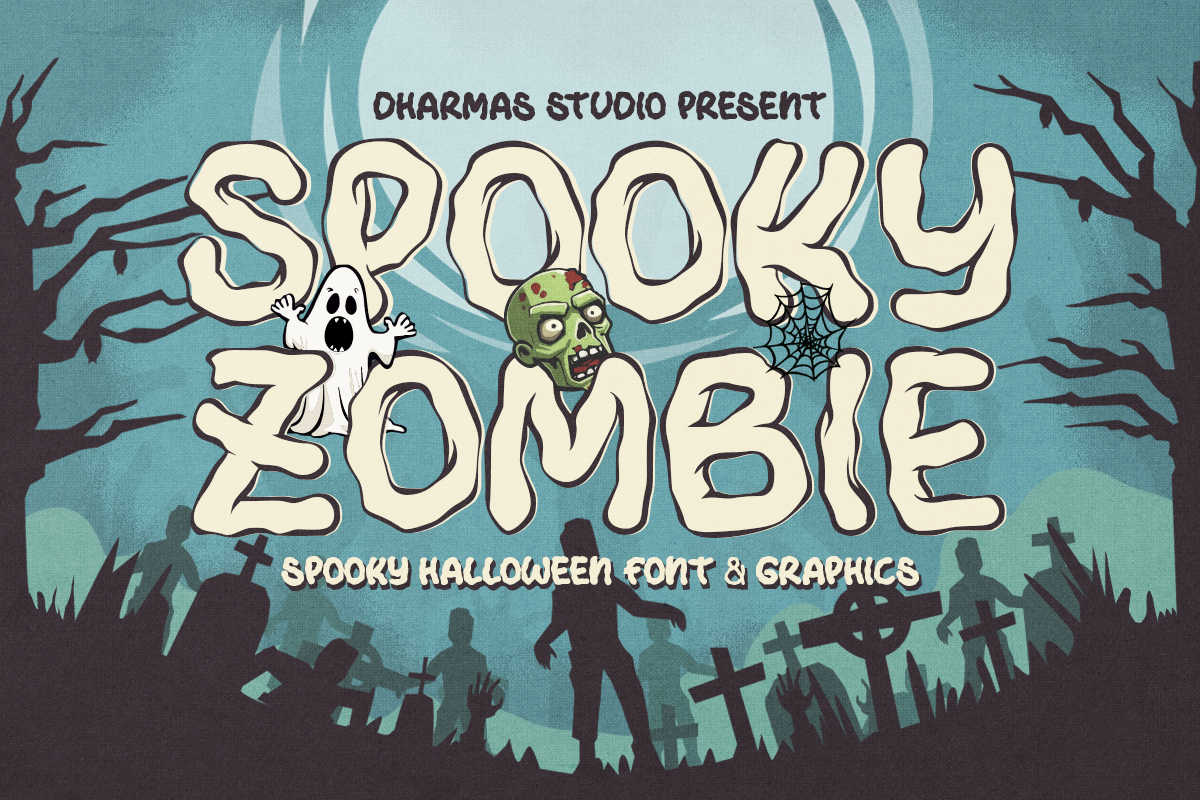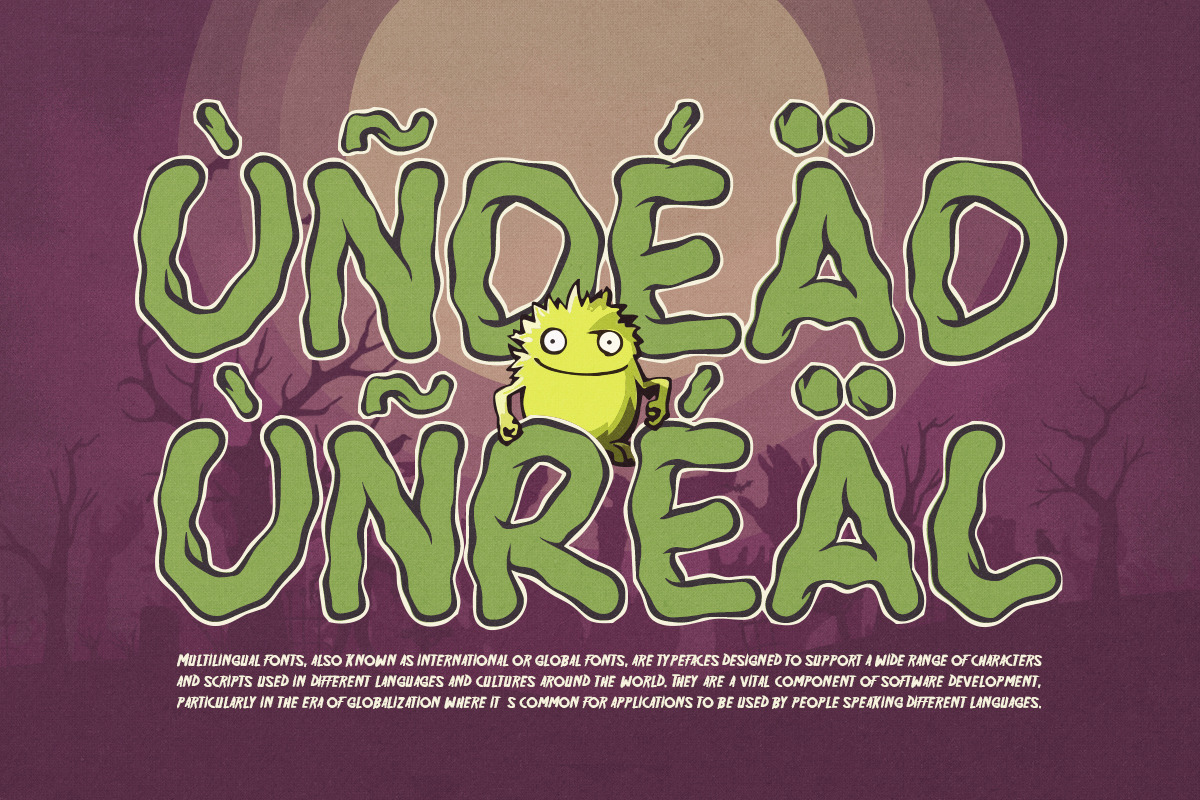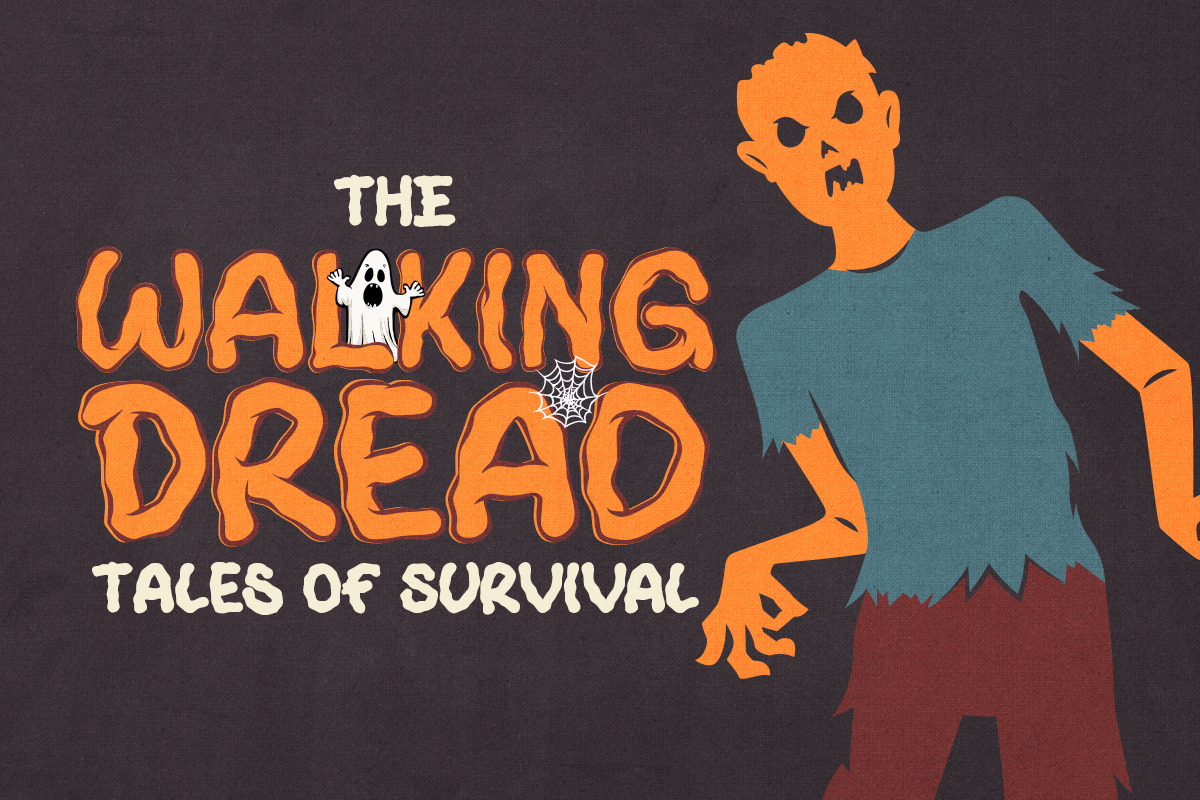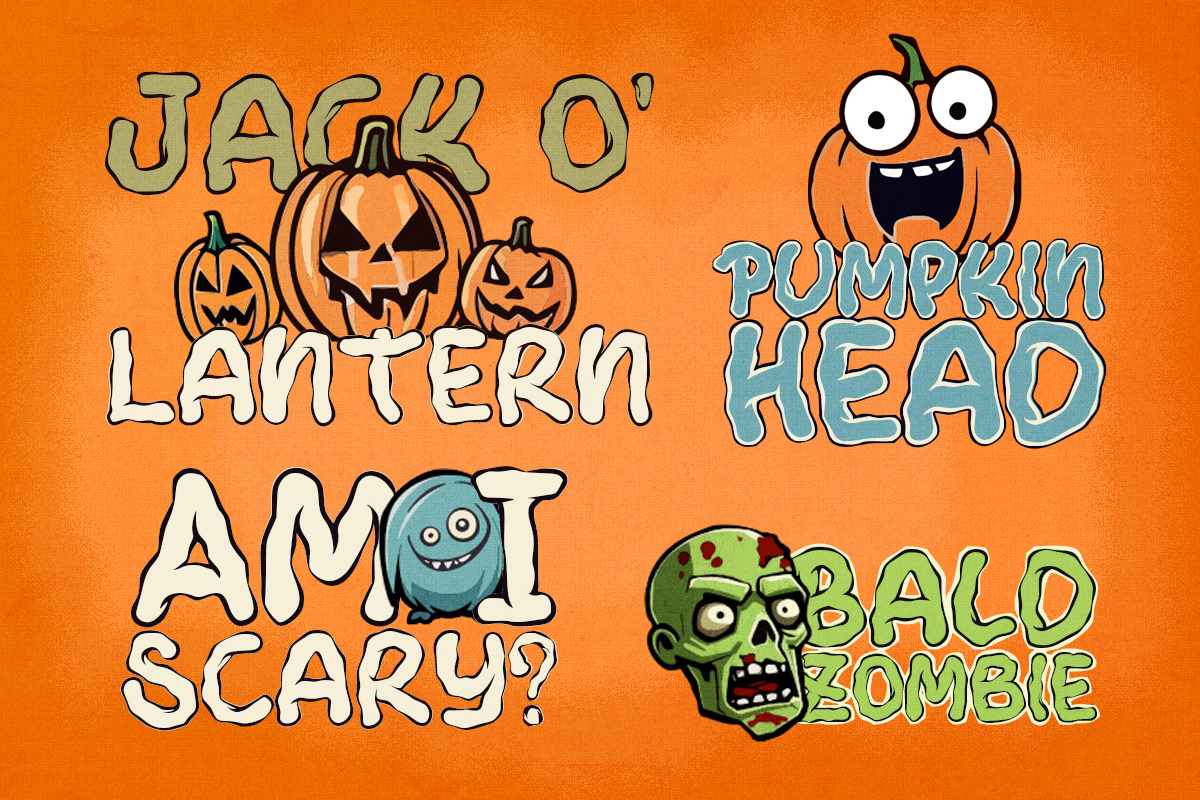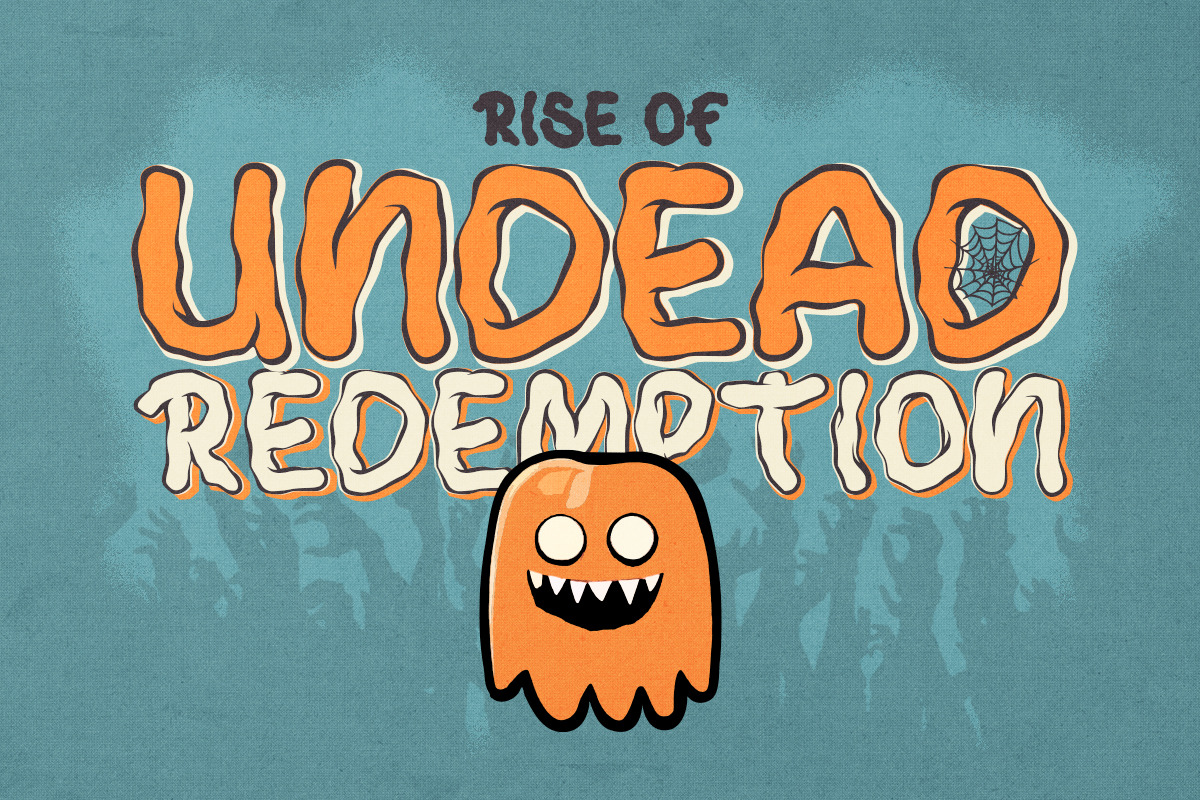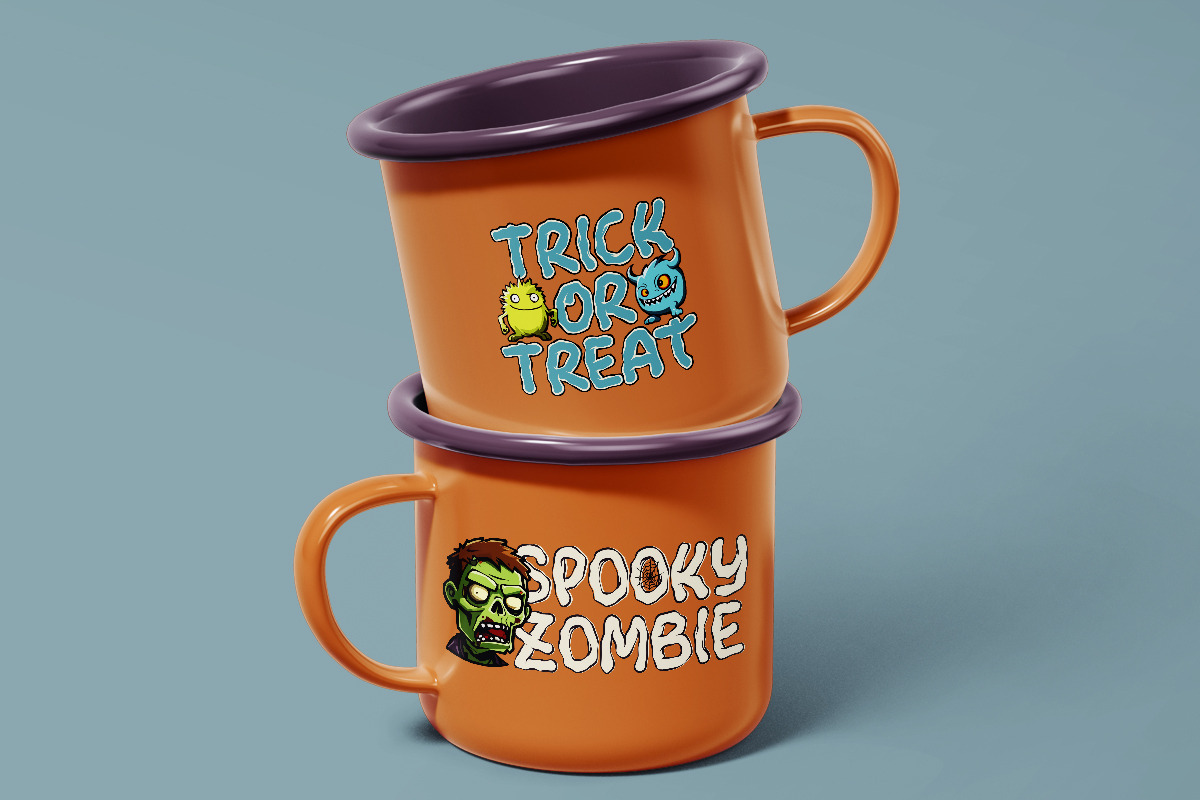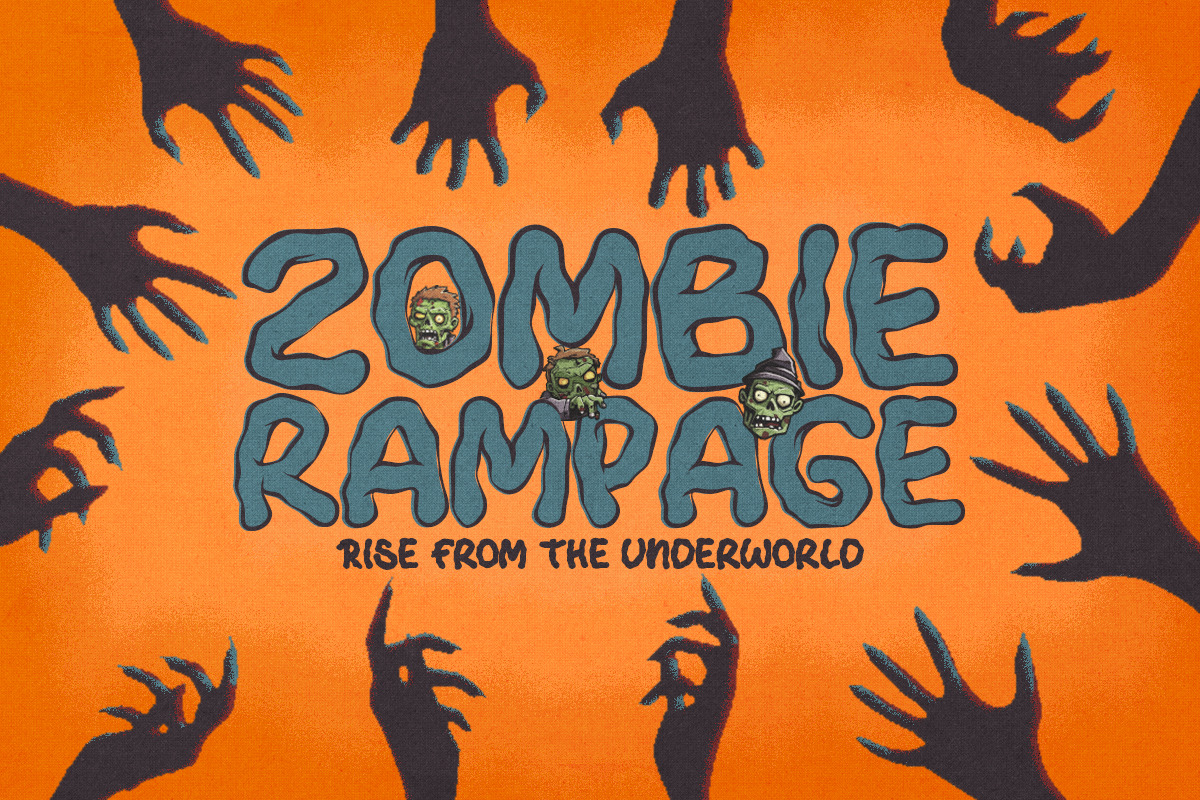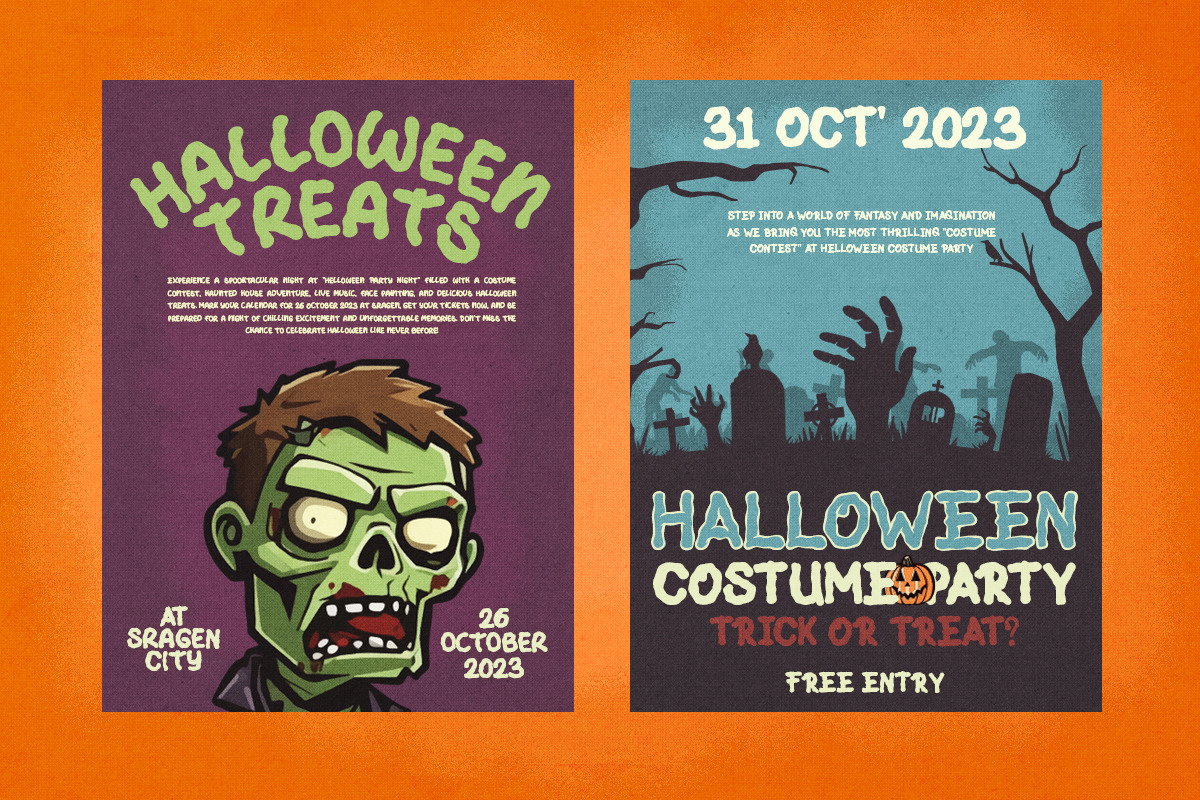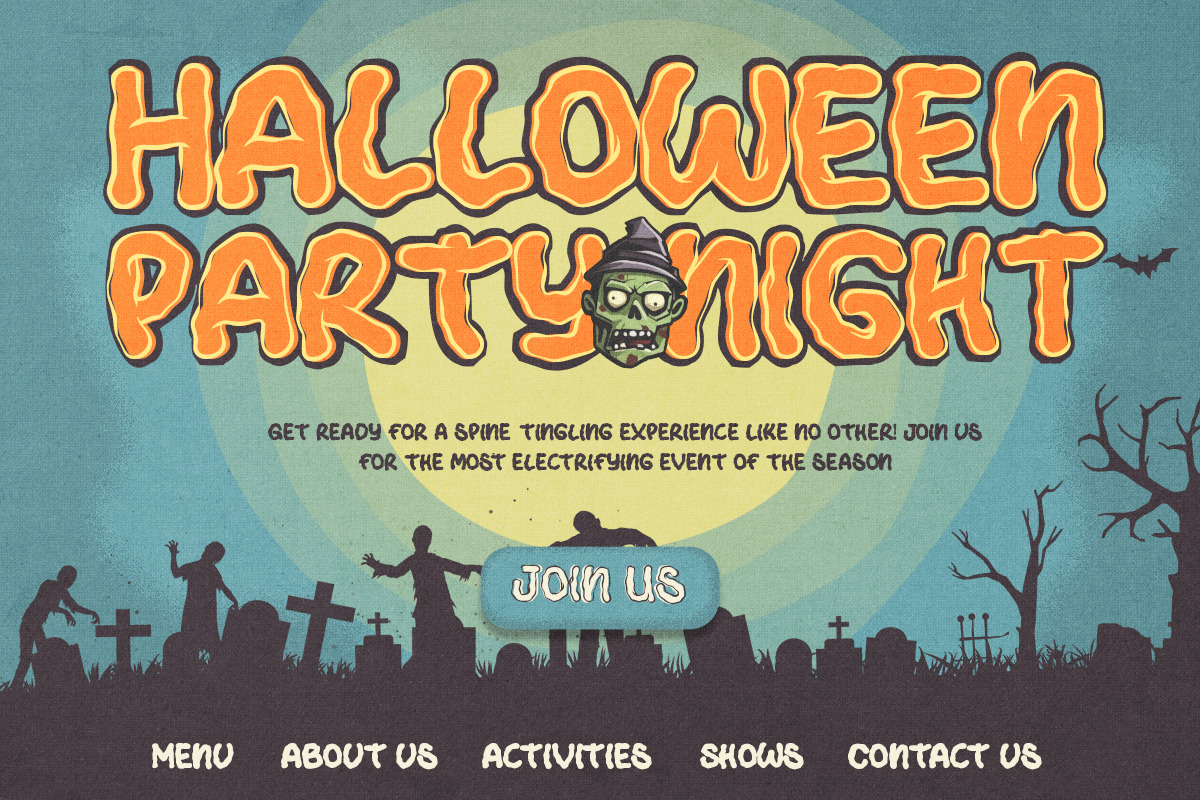
Spooky Zombie - Halloween Font
Introducing SPOOKY ZOMBIE! A font that's ready to cast a spooky spell on your designs. This eerie display font is the perfect choice for all your Halloween-related projects and crafty ideas. Plus, we've included an Outline version of the font as a little bonus.
When you get Spooky Zombie, you'll also receive 26 spook-tacular Halloween doodles that perfectly complement your hair-raising projects!
Regular and Outline version
Unique Letterforms
Multilingual Supports: (Afrikaans, Albanian, Catalan, Croatian, Czech, Danish, Dutch, English, Estonian, Finnish, French, German, Hungarian, Icelandic, Italian, Lithuanian, Maltese, Norwegian, Polish, Portuguese, Slovenian, Spanish, Swedish, Turkish, Zulu)